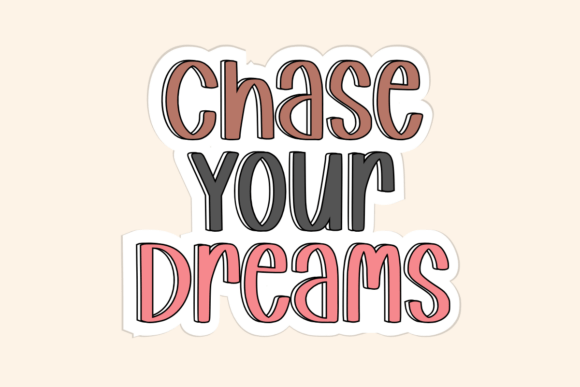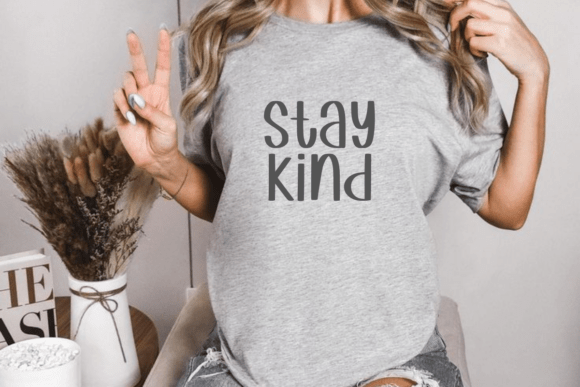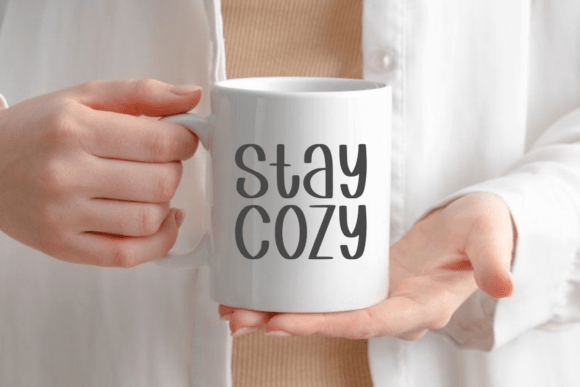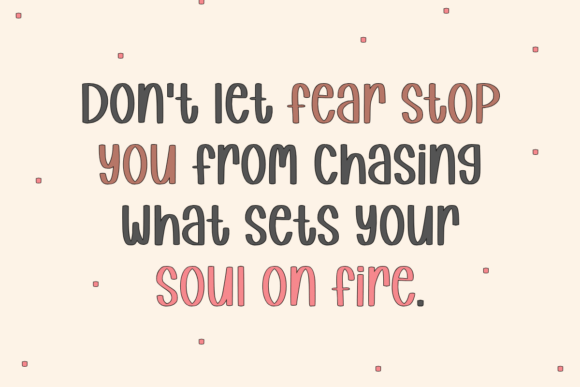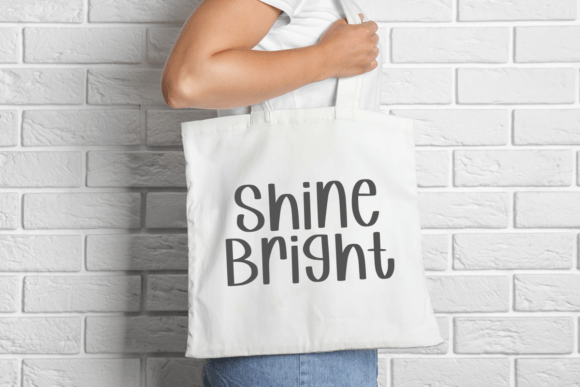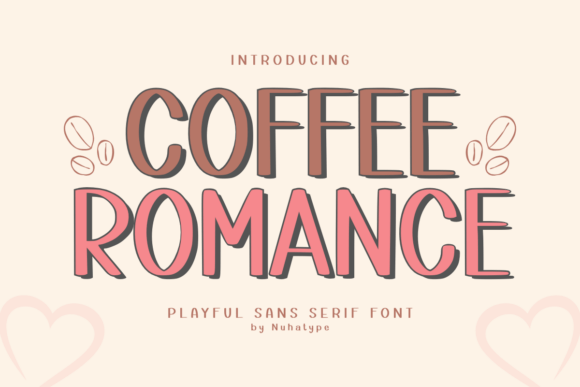
Coffee Romance Font: The Perfect Addition to Your Crafting Projects
Are you a crafter, designer, or DIY enthusiast looking for a font that can add a touch of warmth and personality to your projects? Look no further than the Coffee Romance font. This adorable sans serif handwriting font is designed to bring a soft, friendly, and natural look to your craft projects, making it perfect for a variety of applications.
What is Coffee Romance Font?
Coffee Romance is a cute and charming font that is designed to mimic the look of handwritten text. Its simple strokes and smooth curves make it easy to read and use in a variety of projects, from craft projects to classroom printables. The font’s soft and friendly look is perfect for designers and crafters who want to add a personal touch to their work.
Characteristics of Coffee Romance Font
Coffee Romance font has several characteristics that make it an ideal choice for crafters and designers. Some of its key features include:
- Soft and Friendly Look: The font has a soft and friendly look that is perfect for creating a warm and inviting atmosphere in your projects.
- Simple Strokes and Smooth Curves: The font’s simple strokes and smooth curves make it easy to read and use in a variety of projects.
- Handcrafted Feeling: The font brings a handcrafted feeling to your projects, making them look like they were created with love and care.
- Easy to Cut: The font is easy to cut using Cricut and Silhouette machines, making it perfect for crafters who love to work with these machines.
Uses of Coffee Romance Font
Coffee Romance font is a versatile font that can be used in a variety of projects, including:
- Craft Projects: The font is perfect for craft projects, such as scrapbooking, card making, and DIY designs.
- Planners and Stickers: The font can be used to create adorable planners and stickers that are perfect for keeping track of appointments and tasks.
- Kids’ Worksheets and Classroom Printables: The font is perfect for creating kids’ worksheets and classroom printables, such as activity sheets and educational materials.
- DIY Designs: The font can be used to create a variety of DIY designs, such as signs, labels, and decorations.
- Quotes and Greeting Cards: The font is perfect for creating quotes and greeting cards that are personalized and special.
- Coloring Pages and Bullet Journals: The font can be used to create coloring pages and bullet journals that are fun and interactive.
Why Choose Coffee Romance Font?
There are many reasons why you should choose Coffee Romance font for your next project. Here are just a few:
- Unique and Adorable: The font is unique and adorable, making it perfect for designers and crafters who want to add a personal touch to their work.
- Versatile: The font is versatile and can be used in a variety of projects, from craft projects to classroom printables.
- Perfect for Crafting Moms: The font is perfect for crafting moms who love adorable handwritten styles and want to add a personal touch to their projects.
Coffee Romance font is a charming and versatile font that is perfect for designers and crafters who want to add a personal touch to their projects. Its soft and friendly look, simple strokes and smooth curves, and handcrafted feeling make it an ideal choice for a variety of applications. Whether you’re creating craft projects, planners, stickers, or classroom printables, Coffee Romance font is sure to become a favorite in your collection.
Tips and Tricks for Using Coffee Romance Font
Here are a few tips and tricks for using Coffee Romance font in your projects:
- Experiment with Different Sizes: Experiment with different sizes to find the perfect size for your project.
- Pair it with Other Fonts: Pair Coffee Romance font with other fonts to create a unique and interesting look.
- Use it for Headings and Titles: Use Coffee Romance font for headings and titles to add a personal touch to your project.
- Make it Your Own: Make Coffee Romance font your own by adding your own personal touches, such as colors and graphics.
Coffee Romance font is a beautiful and versatile font that is perfect for designers and crafters who want to add a personal touch to their projects. With its soft and friendly look, simple strokes and smooth curves, and handcrafted feeling, it’s sure to become a favorite in your collection.